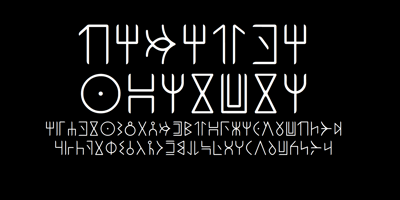
Ongunkan Wakanda Runic
Ongunkan Wakanda Runic font
Ongunkan Wakanda Runic Font Family was designed by Osman Nuri ALKAN and published by Runic World Tamgacı. Ongunkan Wakanda Runic contains 1 styles and family package options. Wakandan is an alphabet designed by Hannah Beachler, and used in the 2018 film Black Panther. It is based on Nsibidi symbols. In the film it is used to transliterate English text in the credits and other on-screen text. Another script used in the film was developed by Oluwaseun Osewa and inspired by Nsibidi, a system of symbols used in southeastern Nigeria between about 400 and 1400 AD.In addition, the symbols of several different ancient languages ​​were also used for the alphabet. Like Old North Arabia, Old Tifinagh.I did not draw for this font, except for a few letters. I transferred the sound values ​​from the ancient writing languages ​​fonts that I had made before to the Wakanda font, so I did not take much time, I finished it in 4-5 hours.